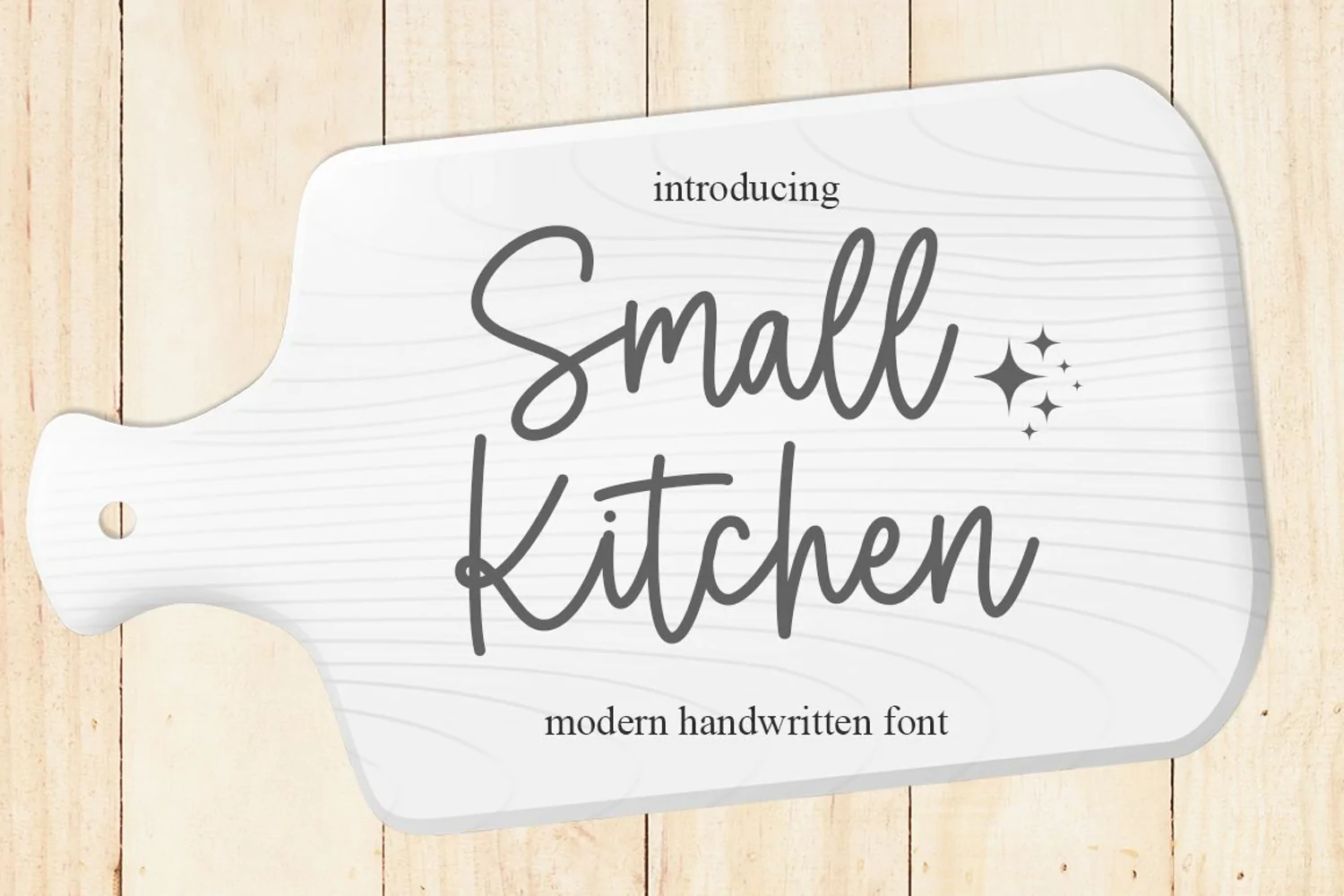
Small Kitchen
Small Kitchen is a thin lettered and graceful script font. Trendy and stylish, this font will elevate each of your creations. It is PUA encoded which means you can access all of the glyphs and swashes with ease!